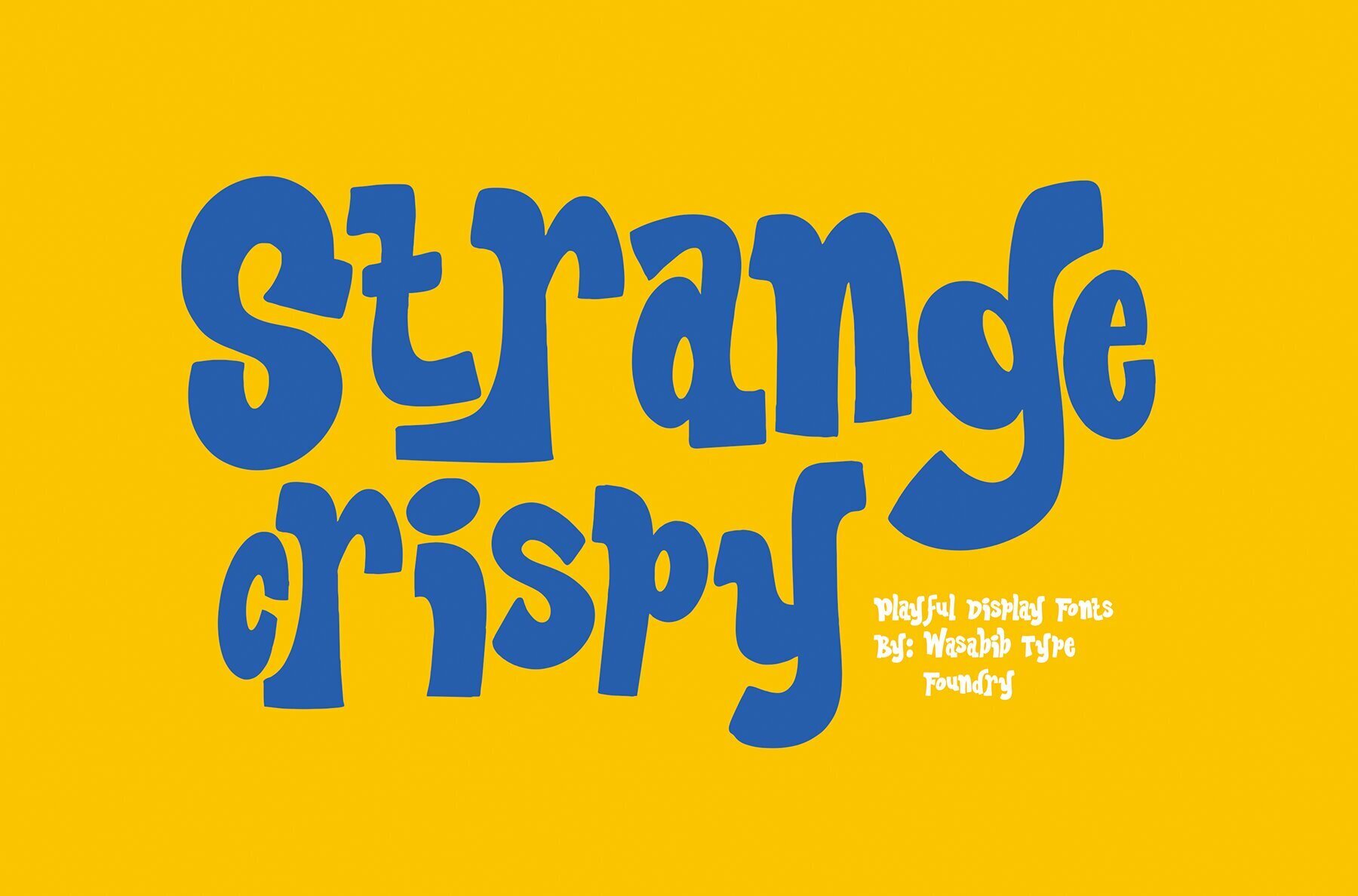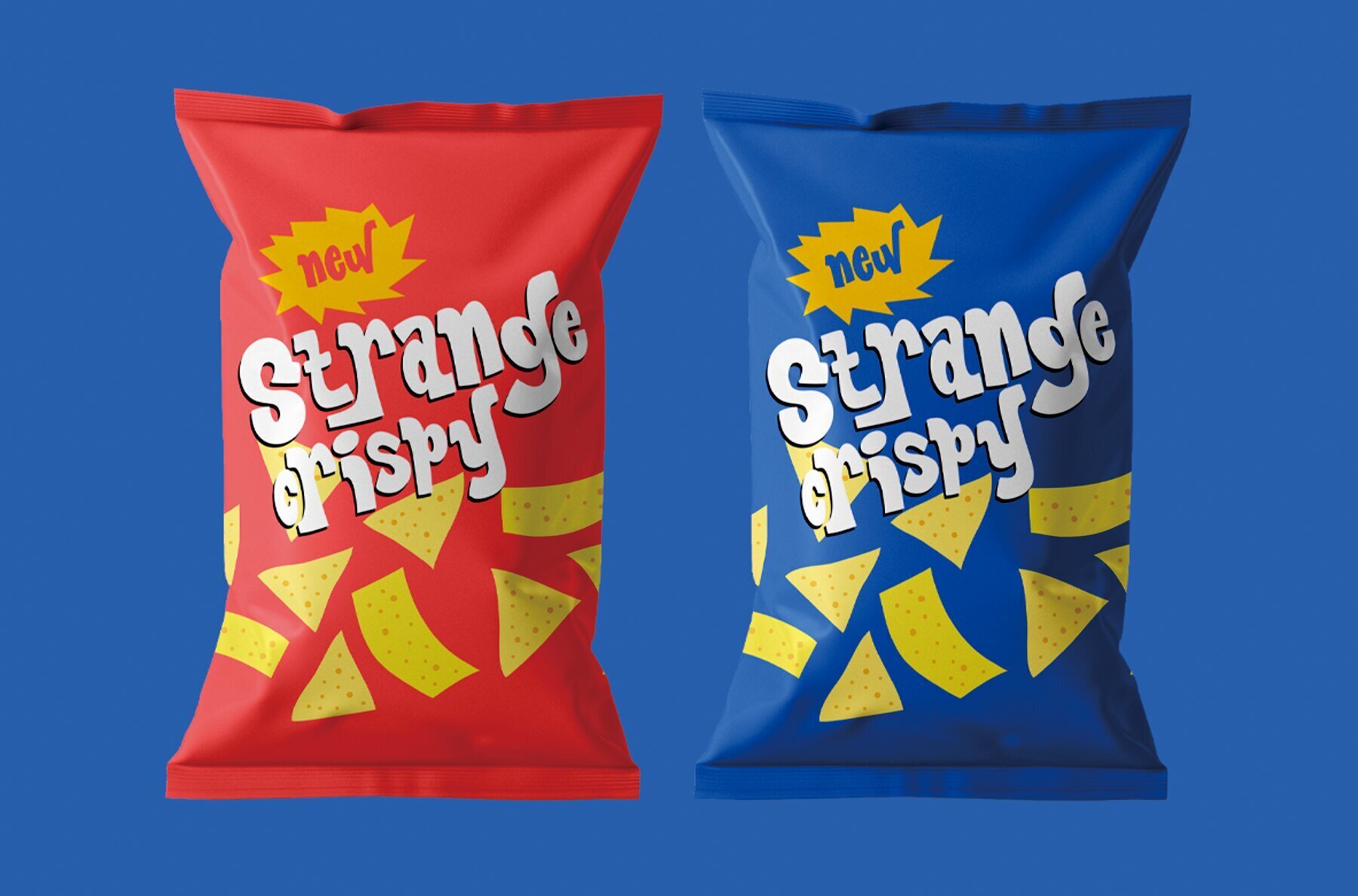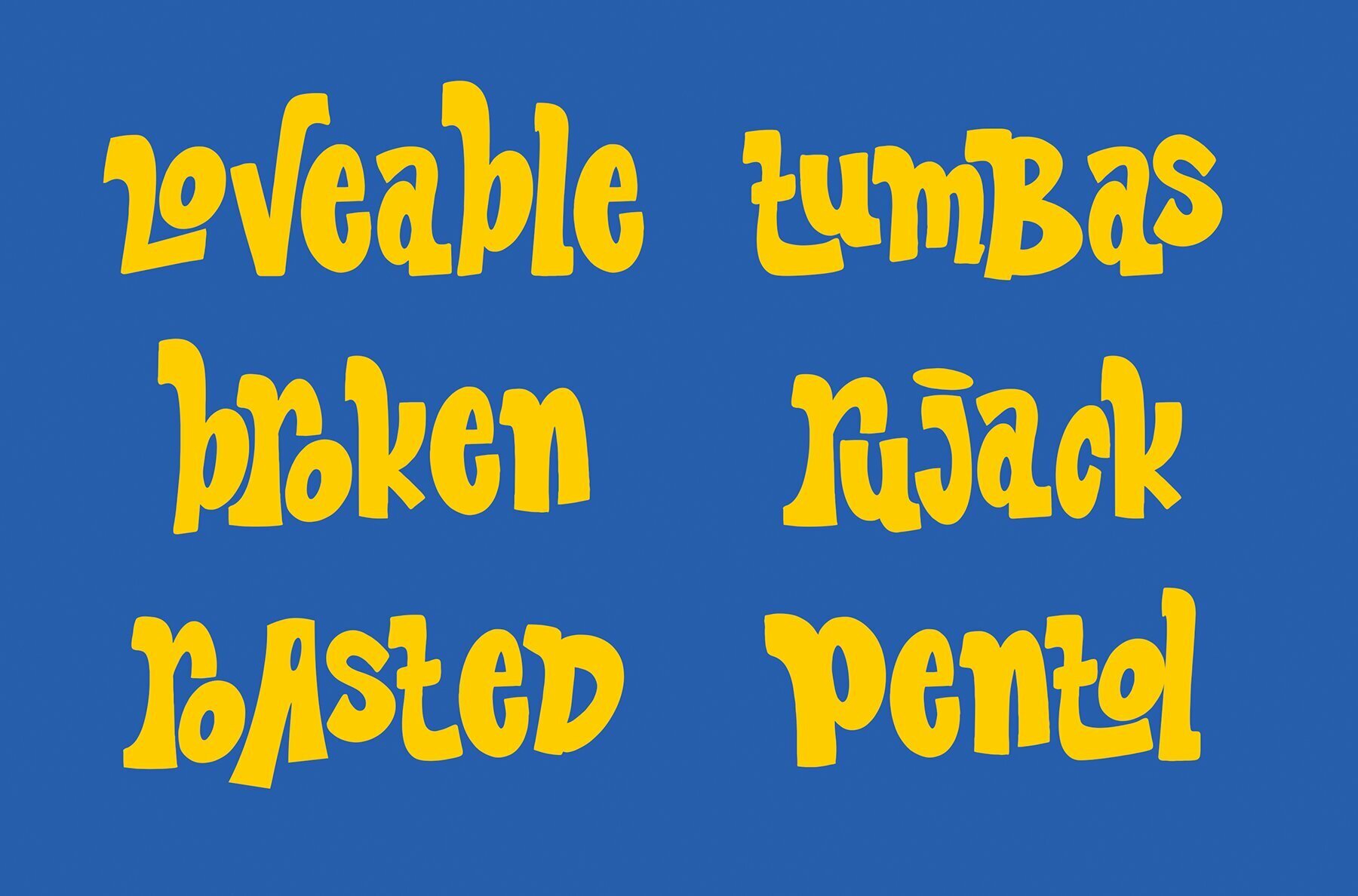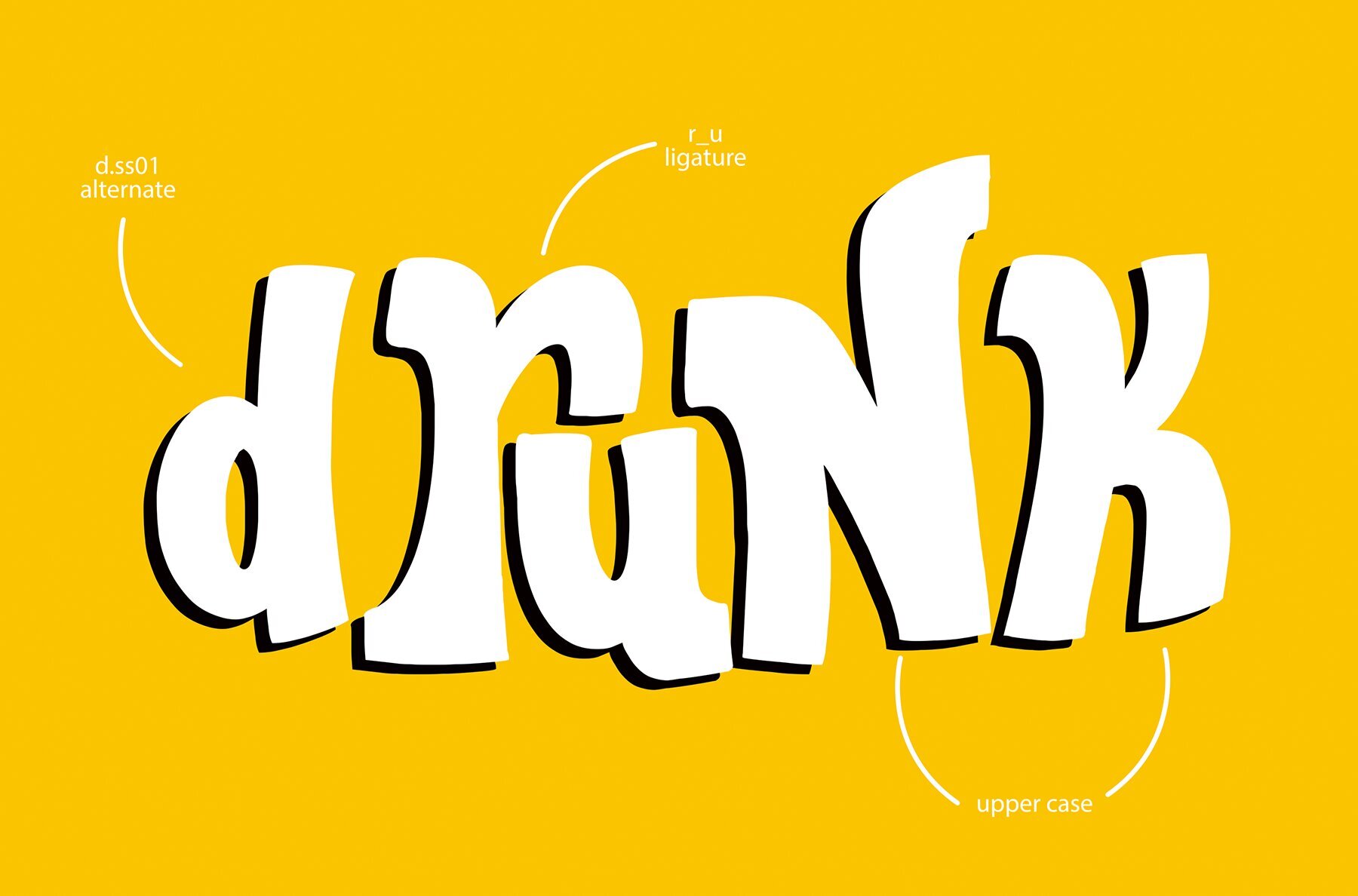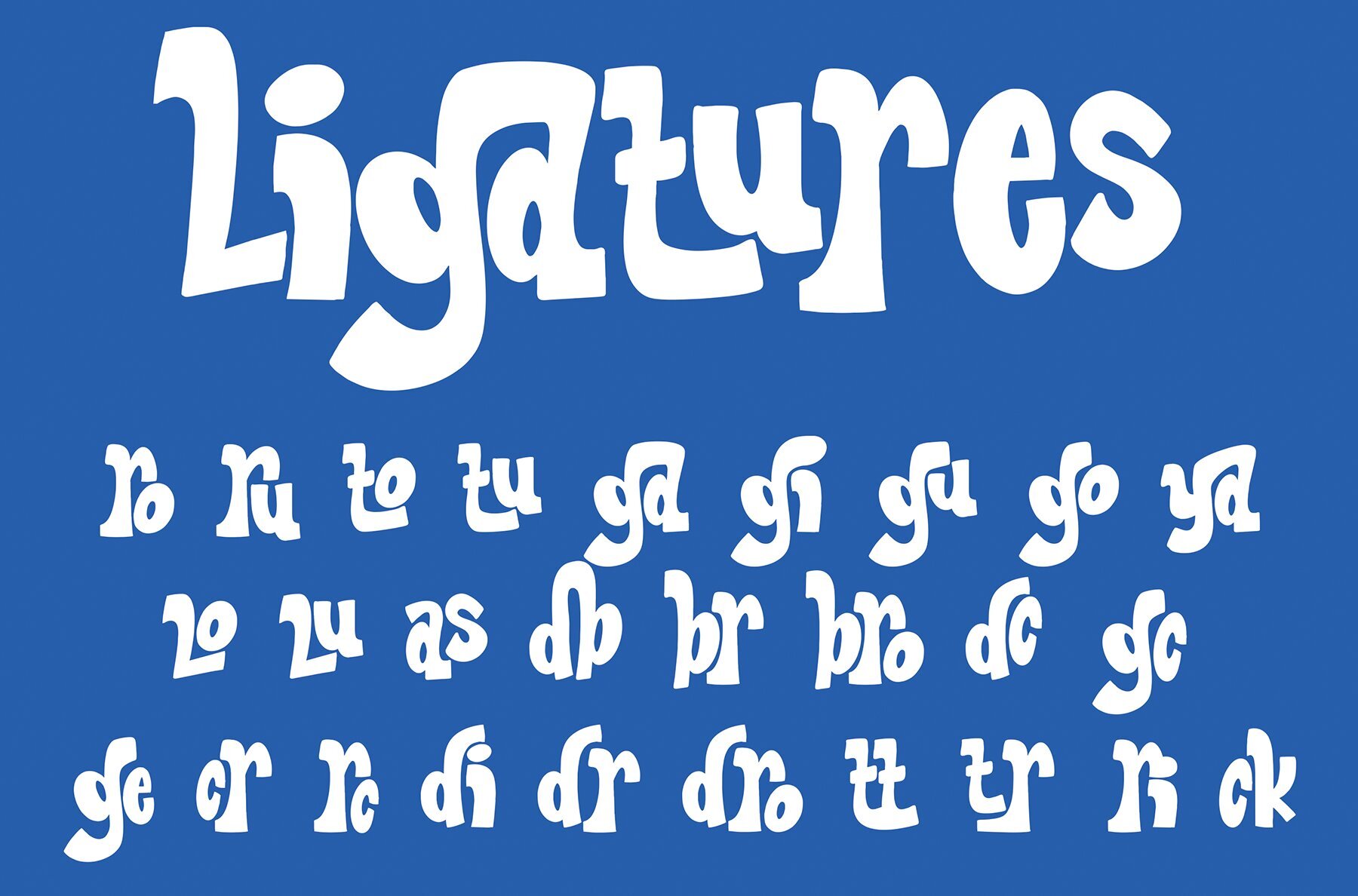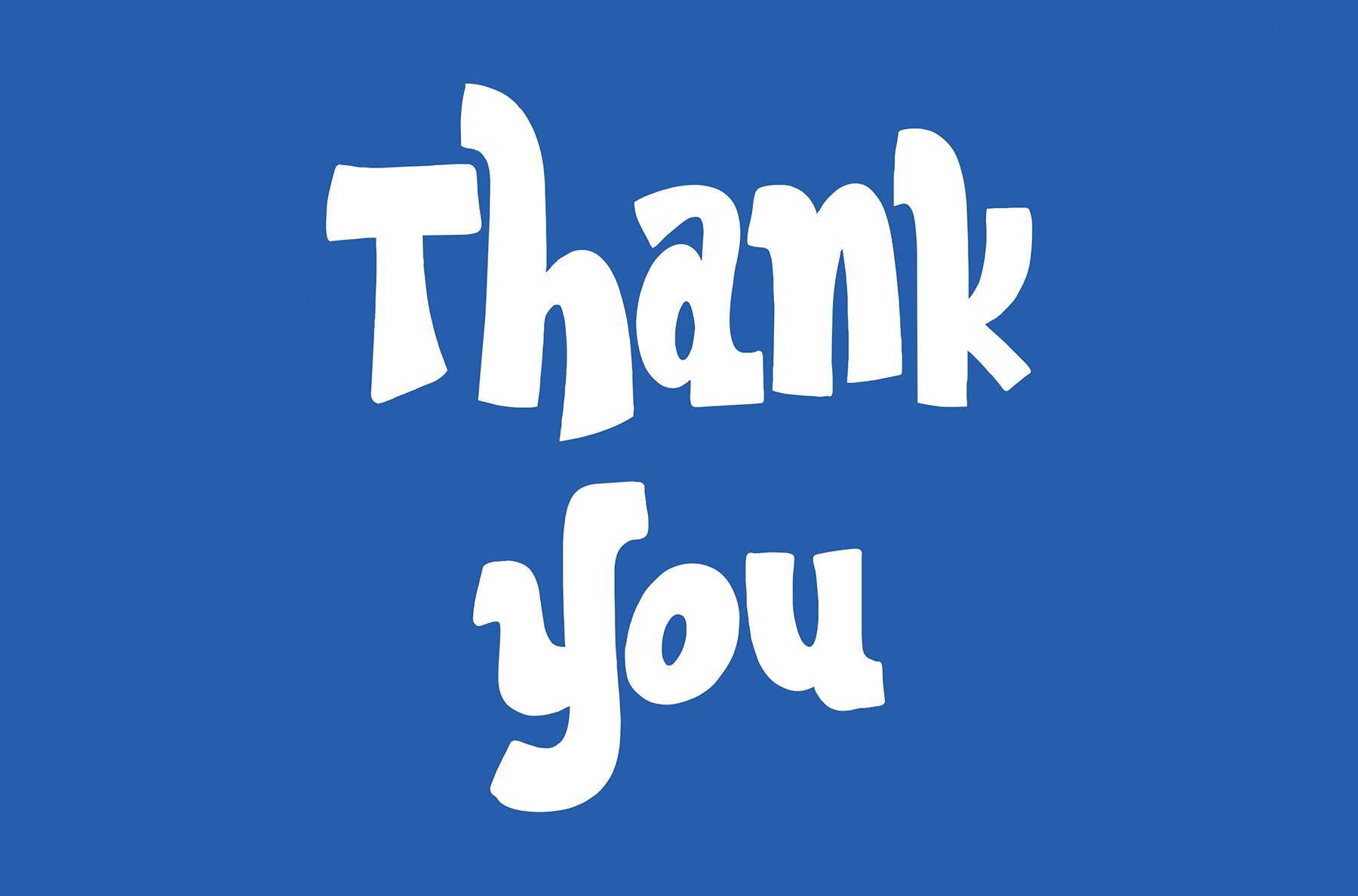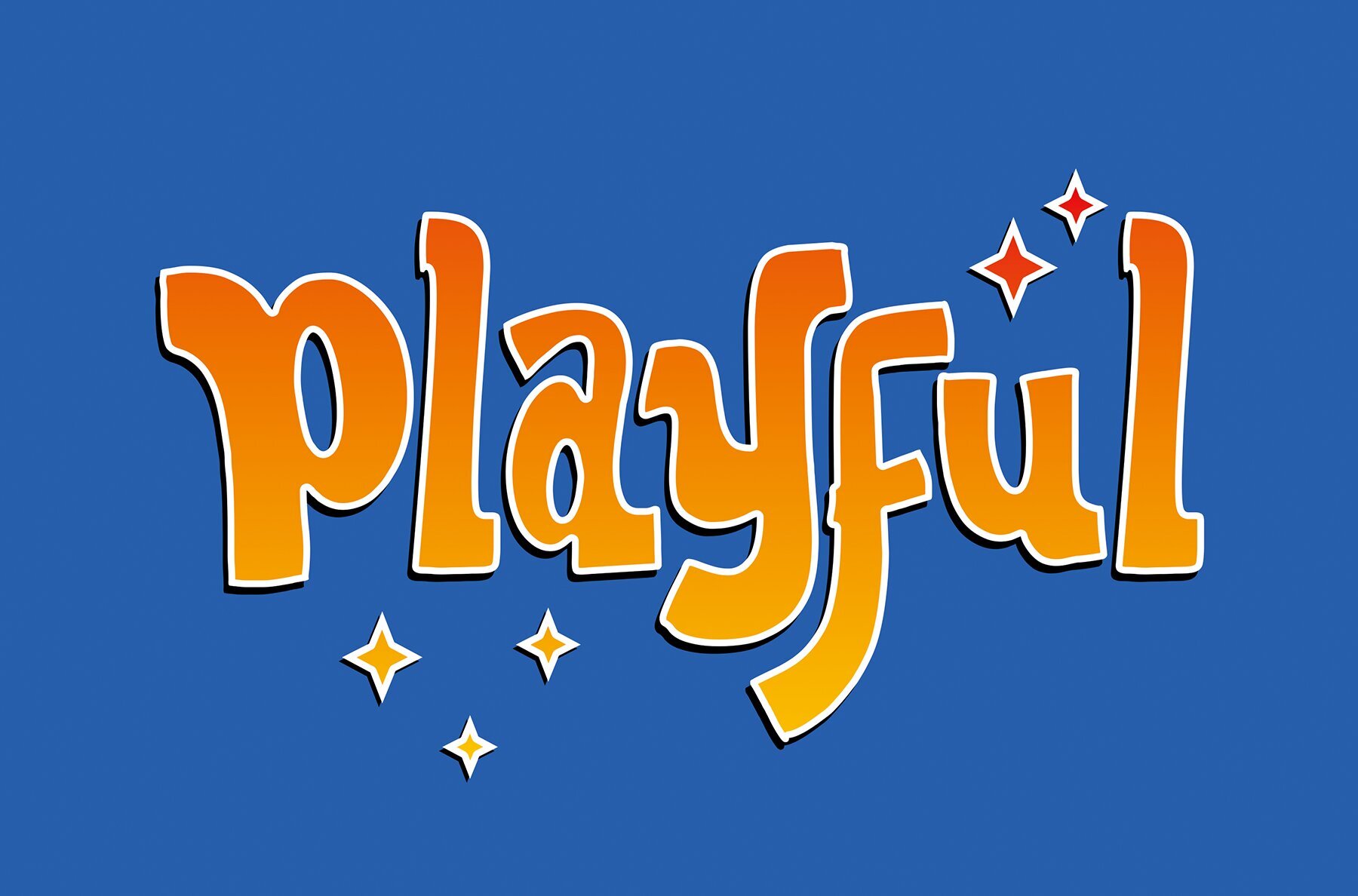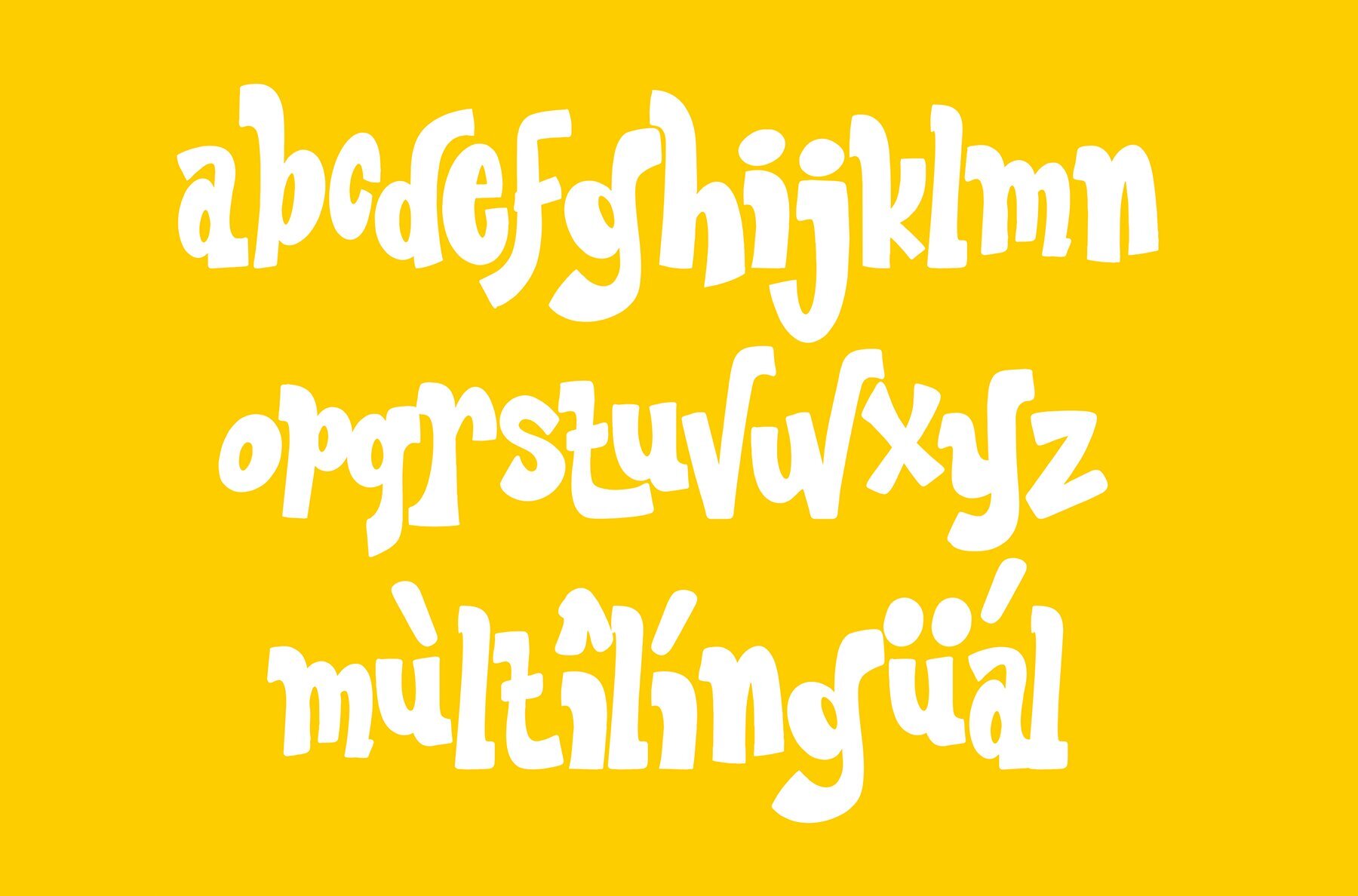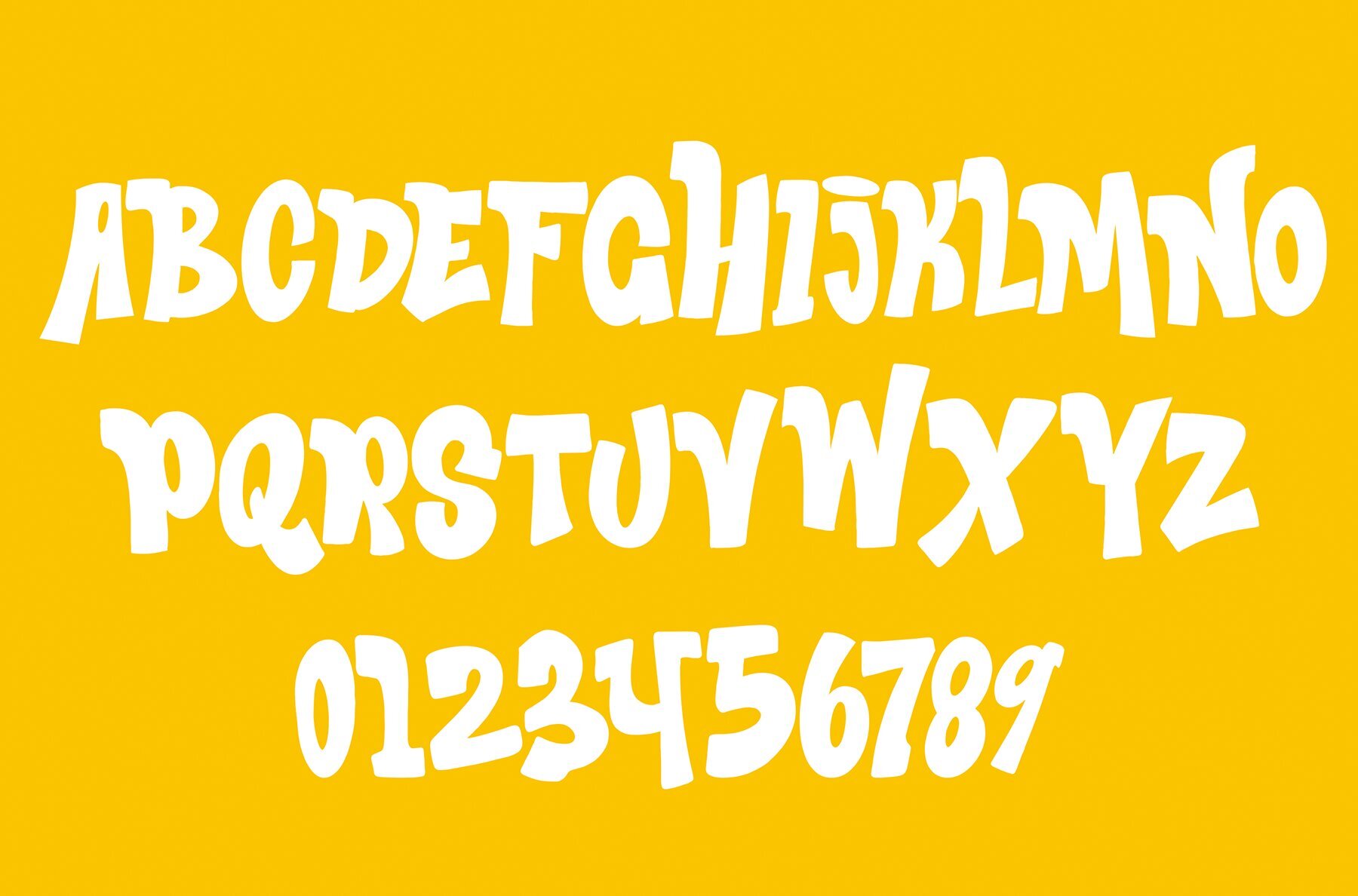
Strange Crispy Font
WTF Strange Crispy Regular
Strange Crispy is a uniquely playful display font with a retro-inspired bounce, crafted with 100% hand-drawn details for an artistic flair sure to make your designs pop. Its versatility allows designers to creatively mix uppercase and lowercase letters, making it a fantastic choice for typography and logotype projects. Suitable for quotes, branding, logos, and social media posts, this font promises to bring a distinctive touch to any design, ensuring it captures attention and leaves a memorable impression.
Infuse your designs with the captivating charm of Strange Crispy, and let its distinctive style highlight your creative vision. Its whimsical and artistic characteristics enhance the visual appeal of any project, making it an ideal tool for designers looking to add a unique element to their work. With Strange Crispy on hand, your projects are set to dazzle and stand out in all the right ways.